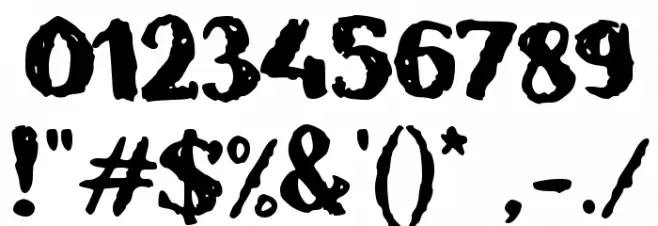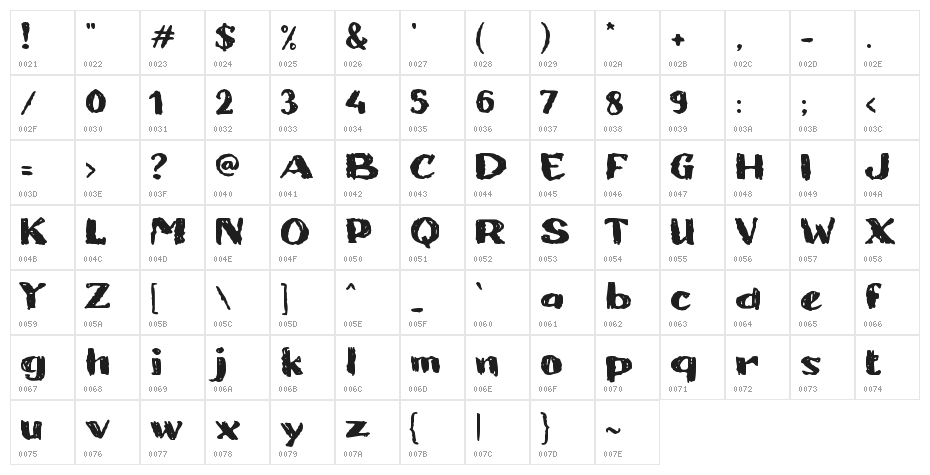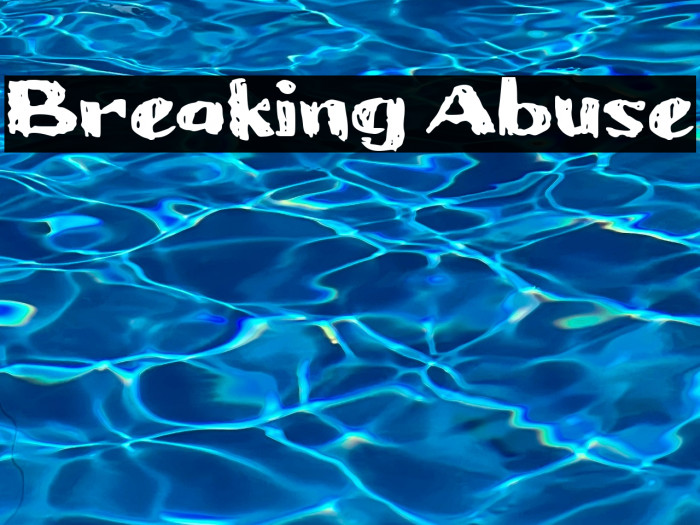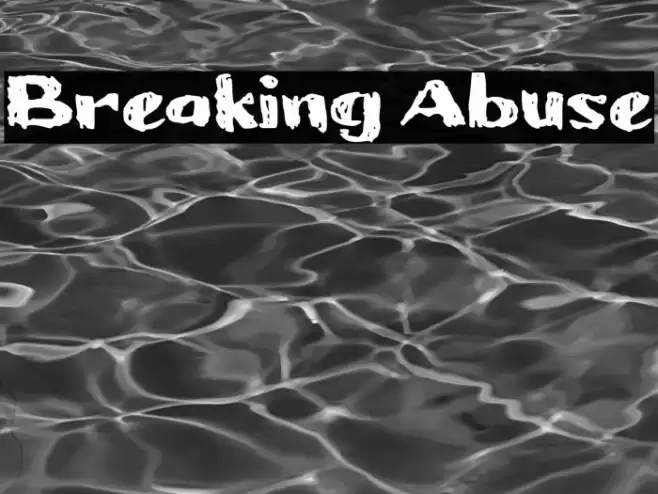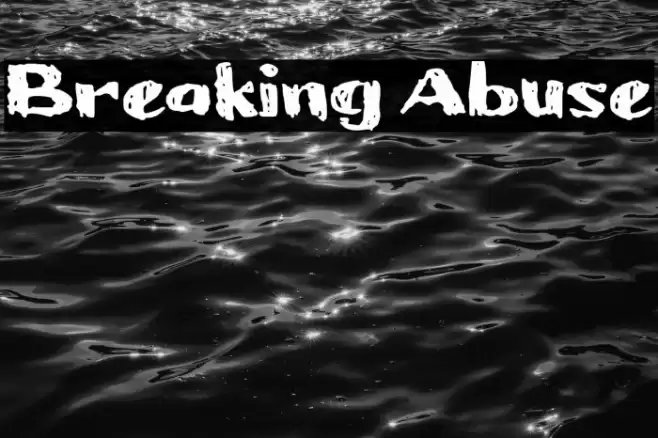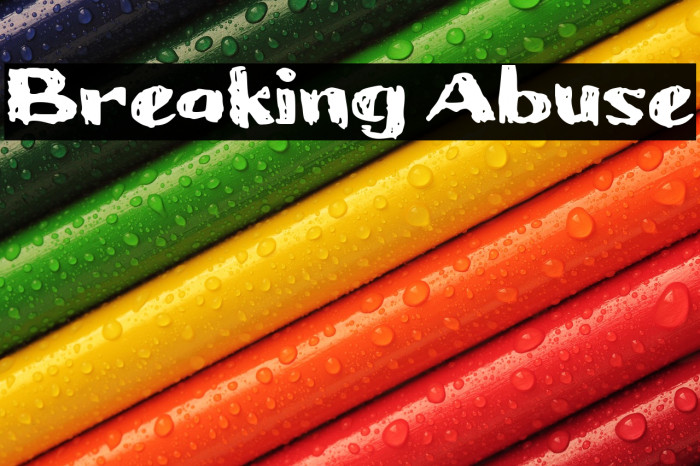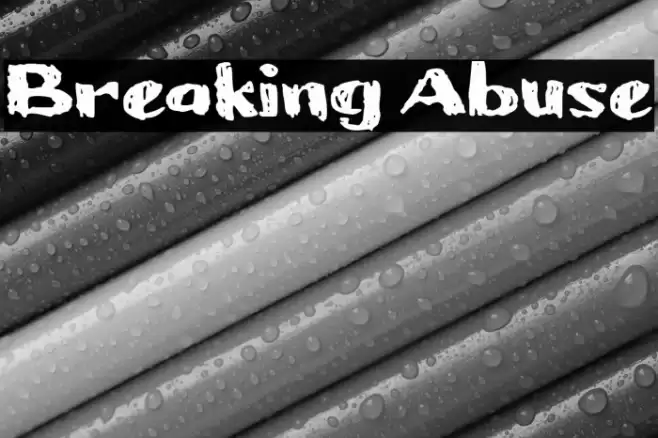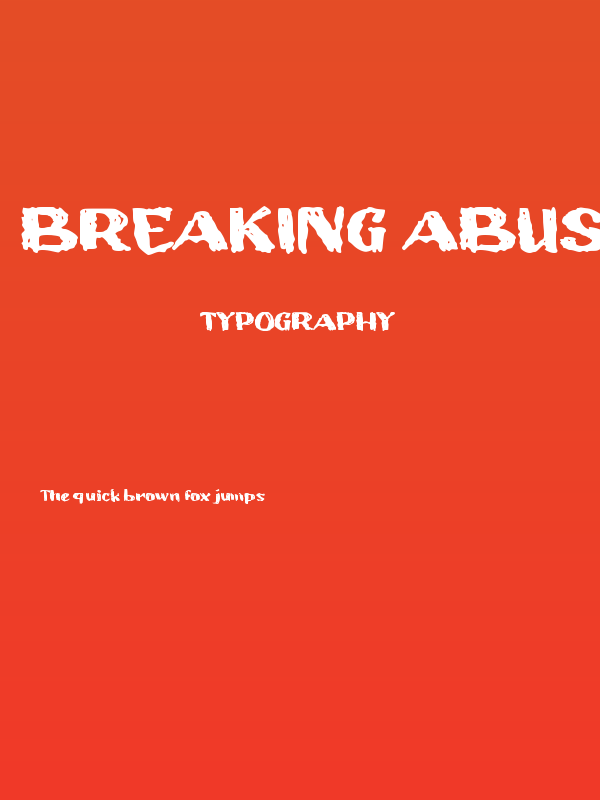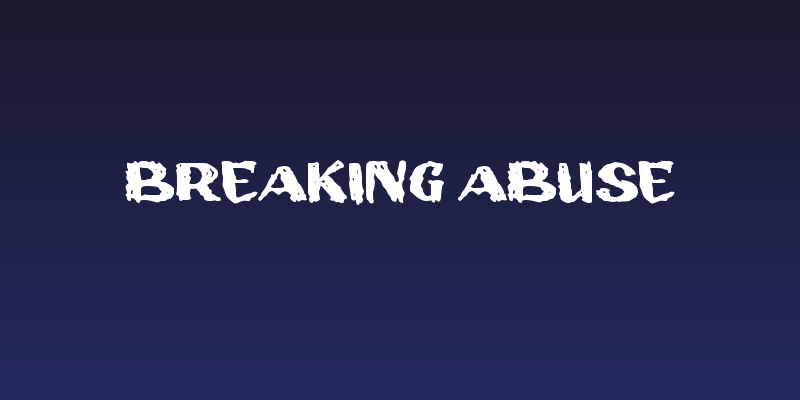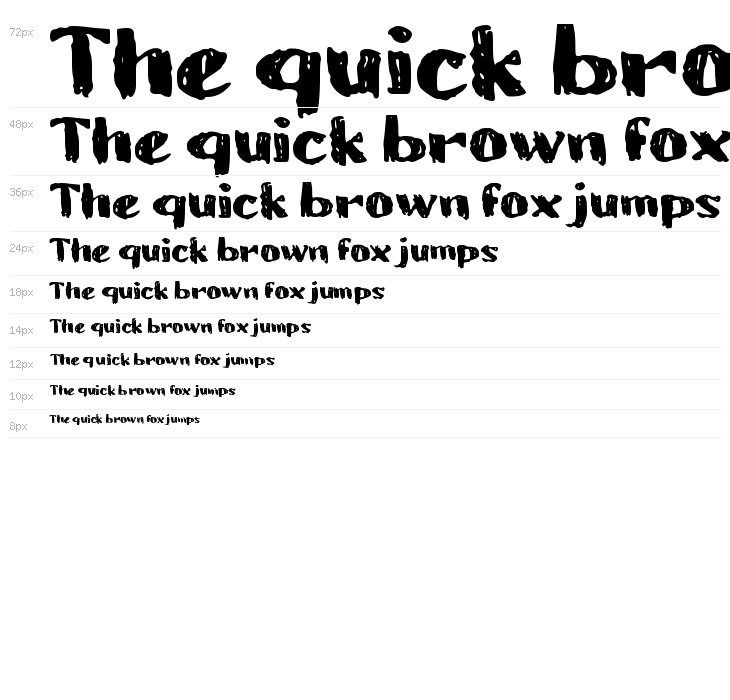
Breaking Abuse Font
Breaking Abuse Description
This font features a rugged, distressed style with uneven edges and a bold presence. The characters appear as if they have been painted with a rough brush, giving them a raw and expressive look. The uppercase and lowercase letters maintain a consistent style, with thick strokes and irregular forms that add to the overall chaotic aesthetic. Numbers and special characters follow the same design, ensuring a cohesive appearance across all elements. The font's unique texture and boldness make it stand out, ideal for projects that require a strong visual impact.
| Proposed Projects | Ideal for album covers, posters, graffiti art, and edgy branding projects. |